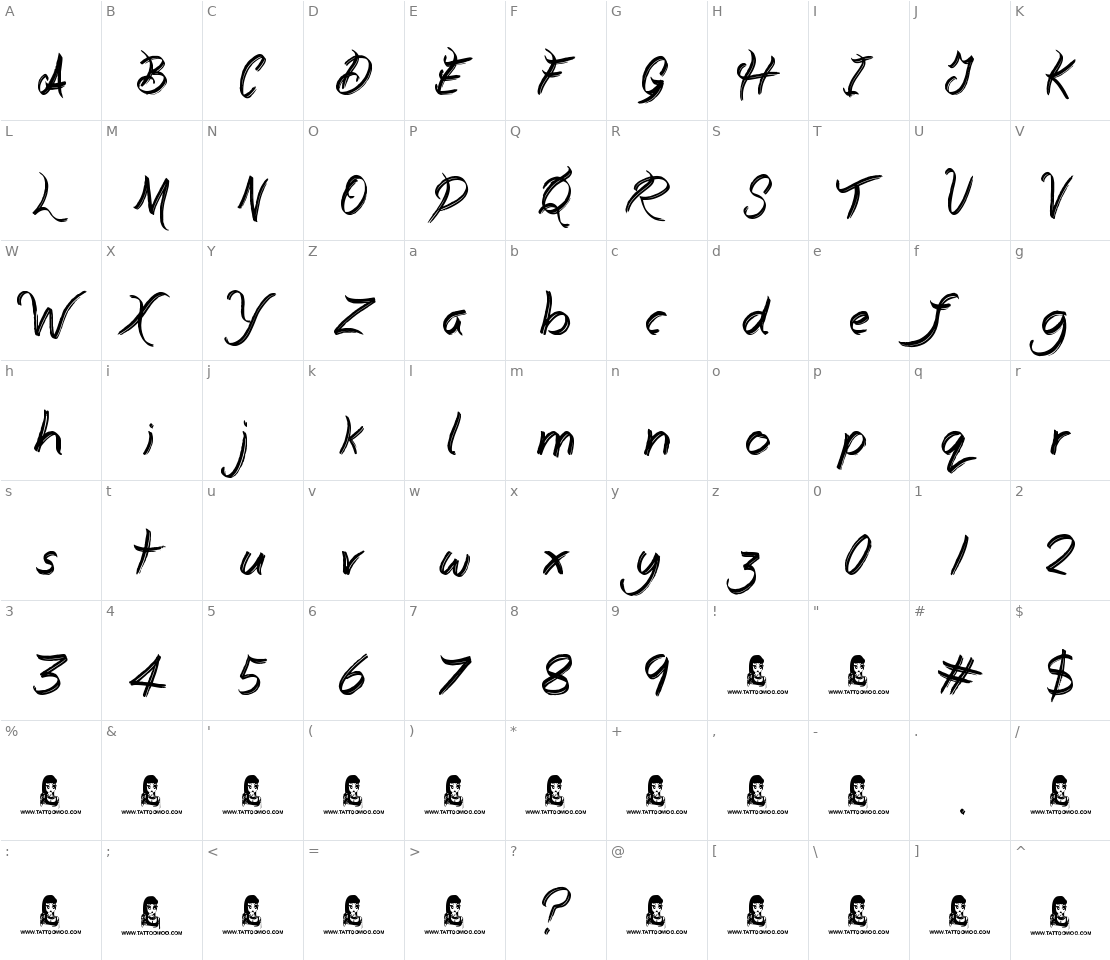
Everyday Mayhem
Everyday Mayhem is a bold brush face from Jonathan S. Harris with fast, energetic strokes that feel like someone attacked a page with a thick marker in a hurry. The letterforms are loose and dynamic but still hold together at headline sizes, giving it a raw, physical energy that works for posters, packaging, and branding that needs to feel spontaneous rather than polished.